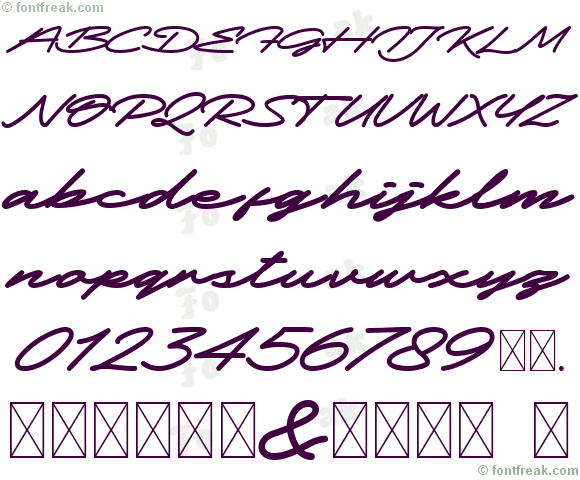
South Pride Charmond Personal U
The South Pride Charmond Personal U font, designed by Mukhlis Muhammad, is a delightful script typeface that exudes elegance and charm. As a handwritten style font, it features smooth, flowing lines that mimic natural handwriting, making it perfect for projects where a personal touch is desired. The stroke weight is moderately consistent, with slight variations that enhance its organic feel, while the overall contrast remains subtle yet impactful. The spacing is well-balanced, providing readability without sacrificing style, making it suitable for a range of design applications.
This font shines in various creative contexts. Wedding invitations benefit from its romantic flair, adding a touch of sophistication to special occasions. It can also elevate branding materials for artisanal shops or boutique businesses, capturing the essence of handcrafted products. Additionally, South Pride Charmond Personal U is ideal for crafting eye-catching restaurant menus that invite diners in with a warm and inviting atmosphere. Movie posters can leverage its unique character to draw attention and evoke emotion, creating a visual narrative that resonates with viewers.
The target audience for this font includes graphic designers, small business owners, and content creators who seek to convey a sense of warmth and personality in their work. Whether you're designing promotional materials or personal projects, this font offers versatility and an appealing aesthetic.
What sets the South Pride Charmond Personal U font apart is its ability to blend elegance with approachability. Its free download availability makes it accessible for anyone looking to enhance their design projects with a touch of distinctive flair. This font not only adds a unique visual element but also tells a story, making it an exceptional choice for those aiming to create memorable and impactful designs.